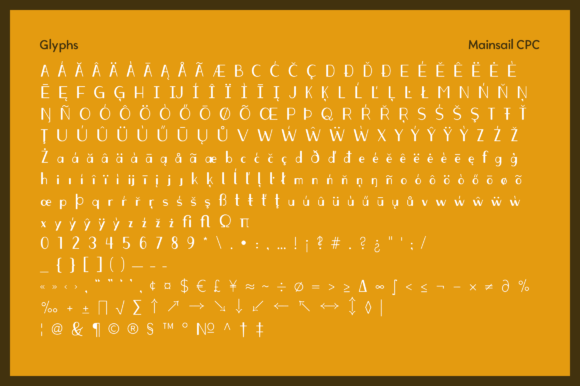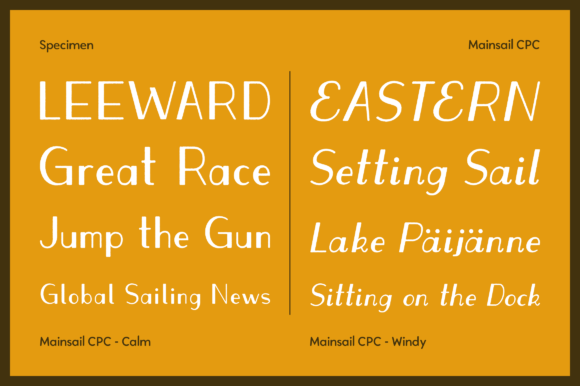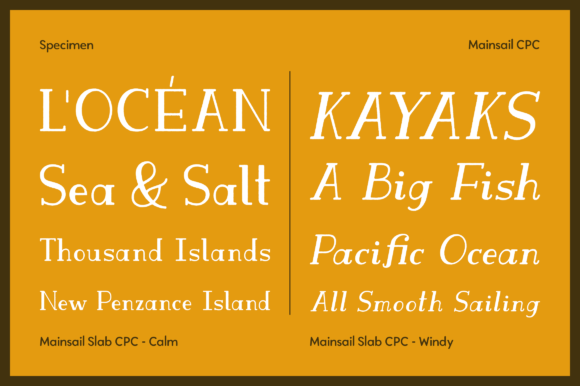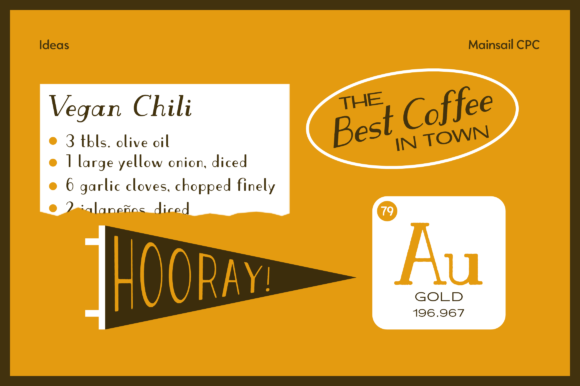
Mainsail CPC Font
MAINSAIL CPC FONT SPECIMEN
Mainsail CPC is a cool and vintage styled slab serif font. No matter the topic, this font will be an incredible asset to your fonts’ library, as it has the potential to elevate any creation.